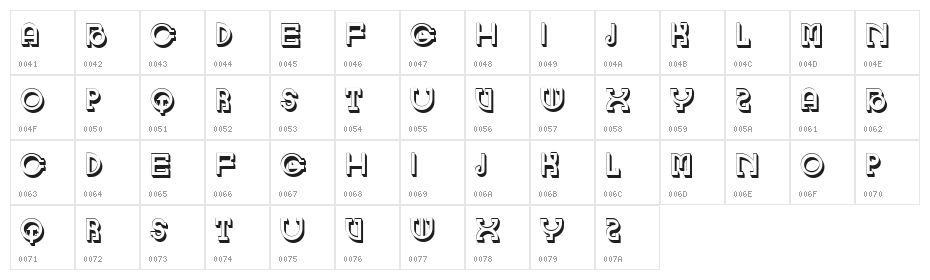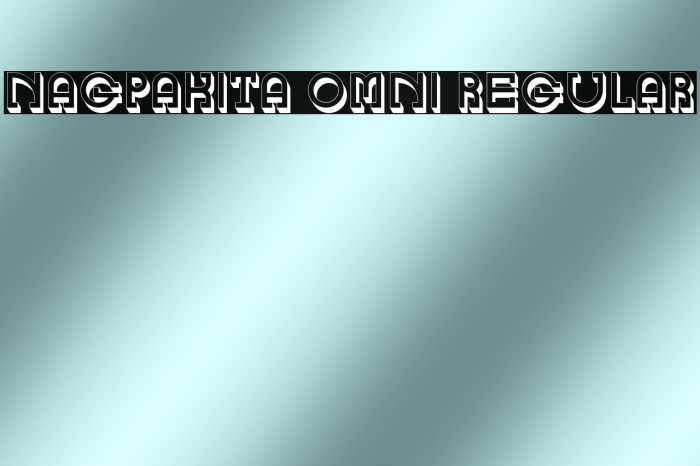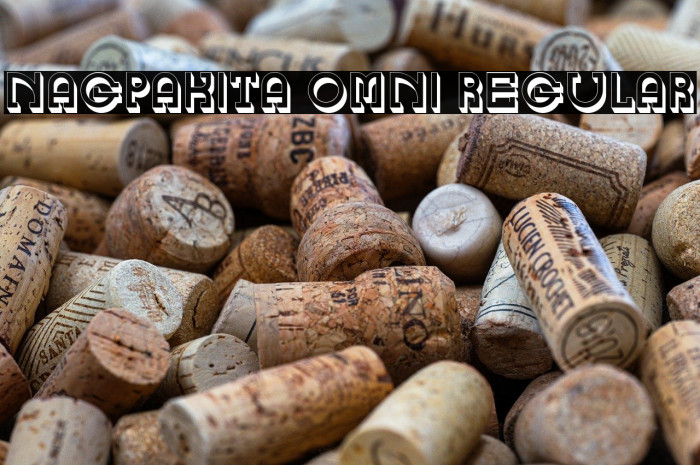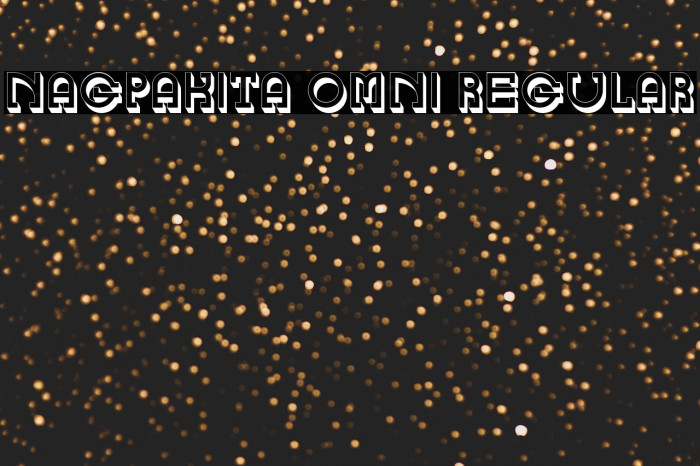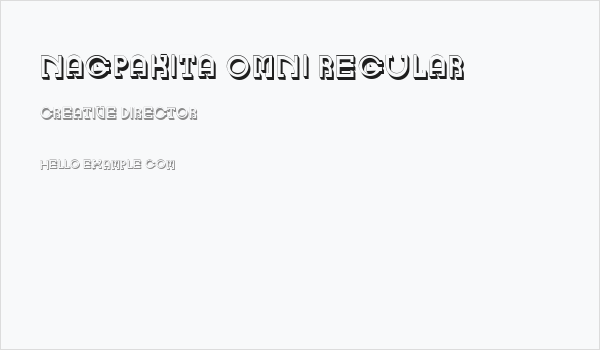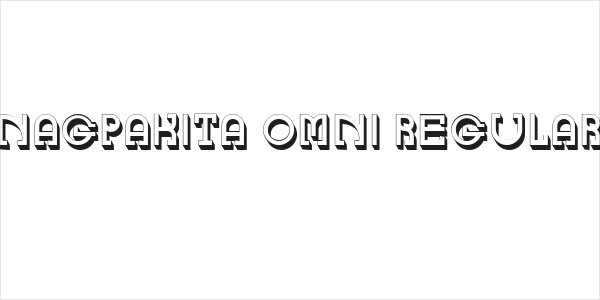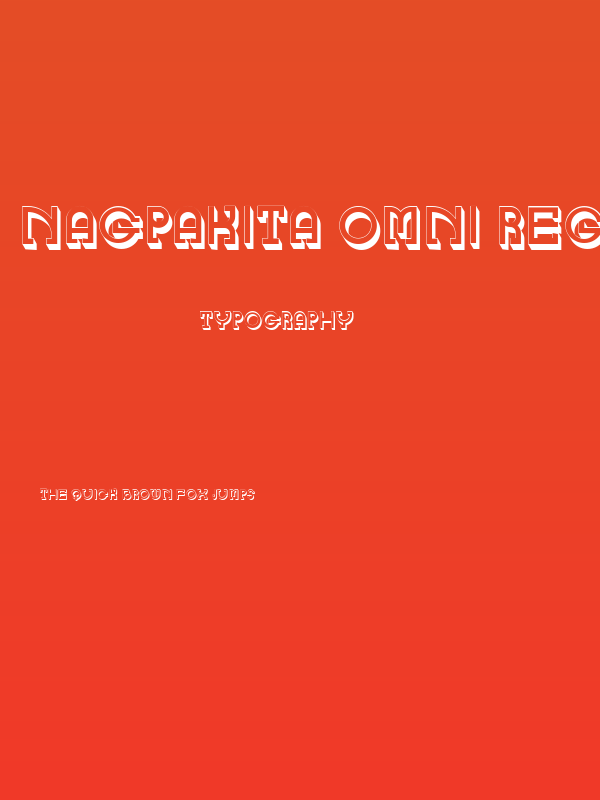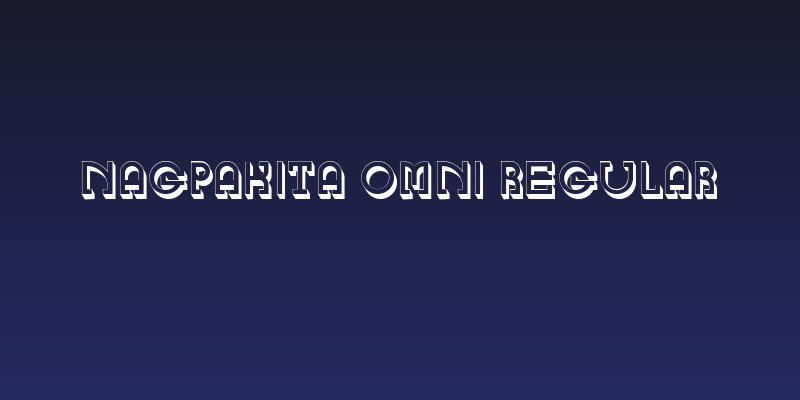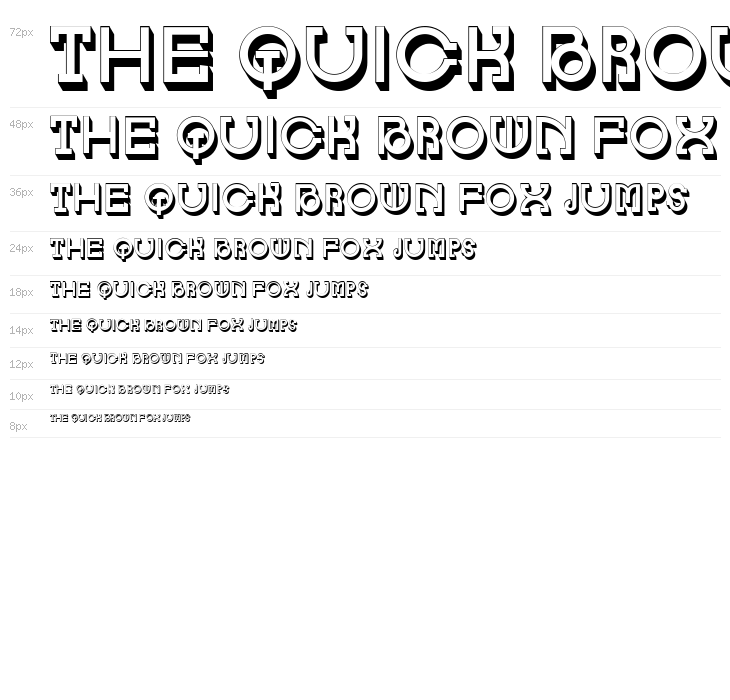
Nagpakita Omni Regular Font
Nagpakita Omni Regular Description
This font features a bold, geometric design with a three-dimensional effect, characterized by thick, block-like letters with a shadow that gives depth. The uppercase letters are uniform in height, with a consistent stroke width that adds to its strong visual impact. The font has a modern, futuristic feel, suitable for making statements in design. The characters are well-spaced, ensuring readability while maintaining a unique style. The absence of lowercase letters and numbers suggests a focus on impactful headlines or titles. The special characters are designed to match the overall aesthetic, maintaining the bold and structured appearance.
| Proposed Projects | Perfect for posters, logos, branding, and any design requiring a strong, modern look. |